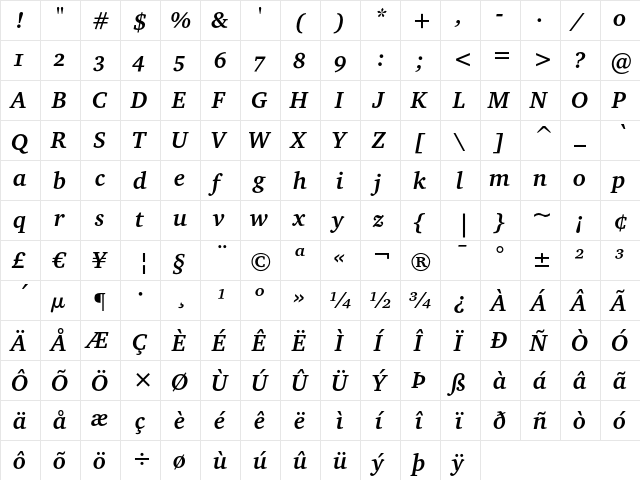
Bitstream Charter Bold Italic OSF
Design Context for Bitstream Charter Typeface
Bitstream Charter takes a measured approach to typography — its balanced proportions and neutral character make it a reliable workhorse for both digital and print work. The dynamic lean of this cut emphasises speed and emphasis in any layout. Its bold stroke weight gives it real presence on the page.
Pro Tip: Use Bitstream Charter for emphasis, pull quotes, and subheadings where its slanted energy can add rhythm to the layout.